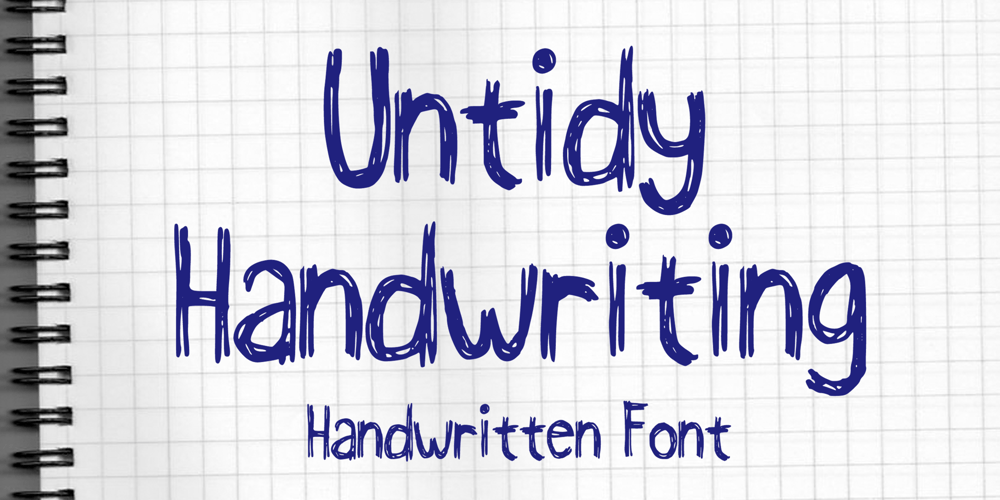
Untidy Handwriting
Untidy Handwriting font
Untidy Handwriting Font Family was designed by Gabriel Valentinus and published by Mvmet. Untidy Handwriting contains 1 styles and family package options. Untidy Handwriting is a fun, playful sketchy, a bit scribble handwritten font. It will elevate a wide range of design projects to the highest level. You can use this font for many design ideas such as stickers, t-shirt designs, amazing logo designs, magazine or book covers, comics, cartoon drawings, and many more. This font will add a super cool touch to your designs!